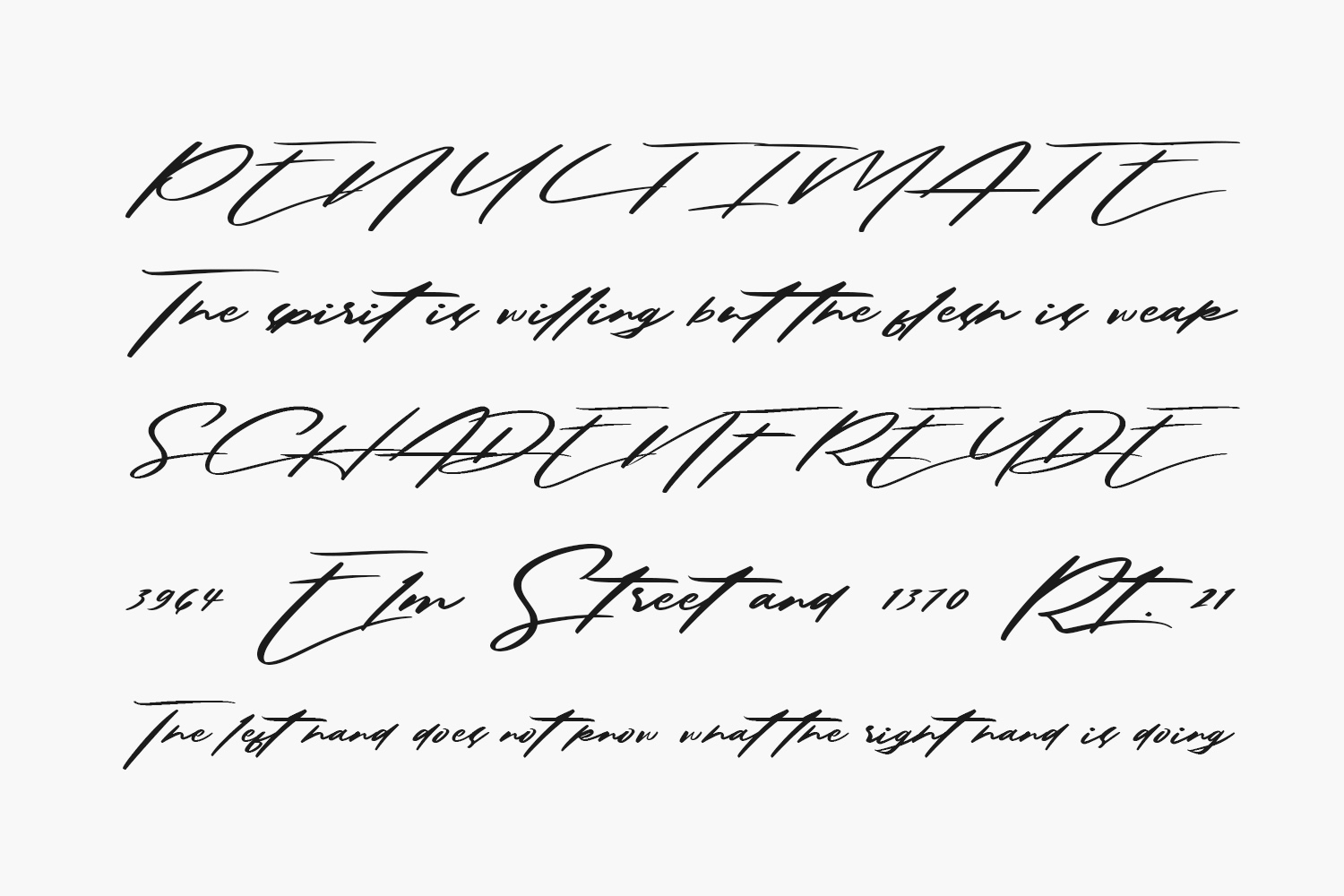
Solustion Free Font is a thin and fashionable script font that embodies the essence of elegant simplicity. Its sleek and delicate lettering adds a touch of sophistication to any design. Its emotional depth gives your words a subtle yet powerful impact. This font is perfect for creating stylish and impactful designs that evoke feelings of hope, love, and inspiration. Whether you’re crafting a heartfelt message, designing a beautiful invitation, or simply adding a touch of glamour to your work, this font brings your designs to life with its emotional charm and understated elegance.